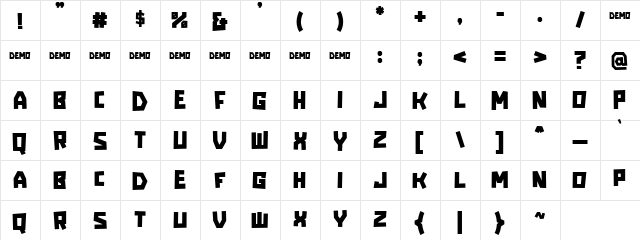
HOT GRILL demo Regular
| Foundry | Sahirul Iman, Semarang, alexatype |
| Designer | Sahirul Iman, Semarang, alexatype |
Design Context for HOT GRILL demo Typeface
HOT GRILL demo is a composed and adaptable typeface that performs quietly and consistently across a wide range of design contexts.